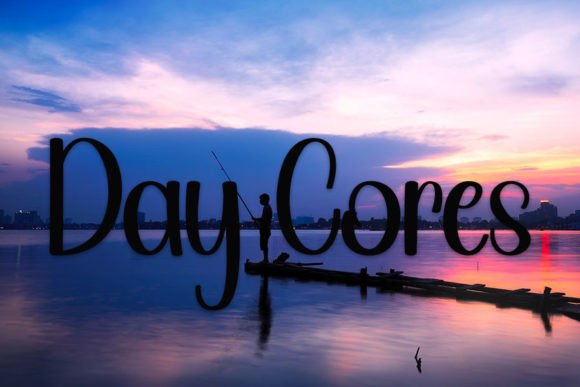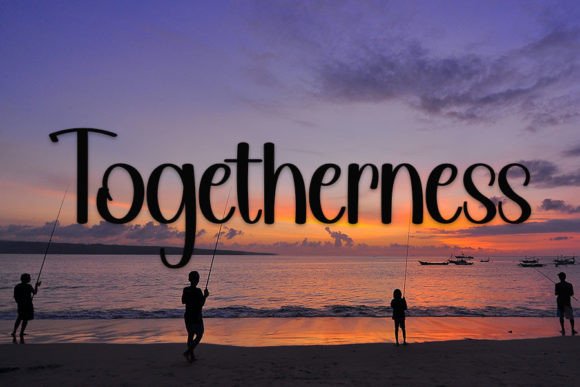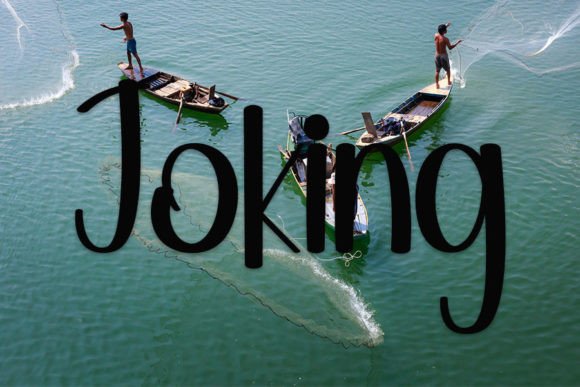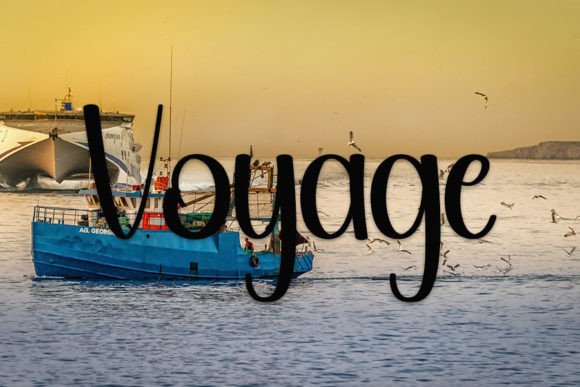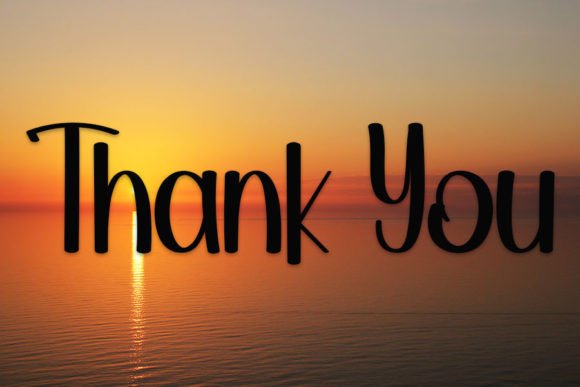
The Catch: Unleashing the Beauty of Fishing Font
I’ll never forget the moment I stumbled upon the perfect font for a client’s branding project. It was a design emergency – the deadline was looming, and I was stuck in a sea of sans-serifs and overused script fonts. That’s when I discovered Fishing Font, a hidden gem that would change the game. In this article, I’ll share my love affair with this elegant handwritten font, its capabilities, and how to make the most of it in your designs.
First Impressions: A Timeless Beauty
Fishing Font is described as a neat and beautiful handwritten font, and I couldn’t agree more. Its elegant touch and incredibly distinct style make it perfect for a wide range of projects. The font’s timeless charm will transport your designs to a world of sophistication and refinement.
Honest Review: The Good, the Great, and the Quirks
So, what makes Fishing Font so special? Here are the things I love:
- ✨ Elegant and refined aesthetic
- 💫 Supports OpenType features, glyphs, and stylistic alternates
- 🎨 Versatile and suitable for various design projects
However, no font is perfect, and Fishing Font has a few minor quirks:
- 🤔 Limited character set compared to some other fonts
- ⚠️ May not be the best choice for body text due to its elegant, cursive nature
The Story Behind Fishing Font
Fishing Font was designed by a talented typographer who drew inspiration from traditional fishing villages and the elegance of handwritten scripts. The goal was to create a font that would evoke a sense of refinement and sophistication, perfect for designers and crafters looking for a unique touch.
| Font Name | Fishing Font |
| What makes Fishing Font so special? | Fishing Font’s unique blend of elegance and legibility makes it perfect for a wide range of design projects. |
| Does Fishing Font support OpenType features? | Yes, Fishing Font supports OpenType features, glyphs, and stylistic alternates, allowing for advanced typographic control. |
| Can I use Fishing Font in both print and digital designs? | Absolutely! Fishing Font is versatile and suitable for both print and digital projects. |
In conclusion, Fishing Font is a beautiful and elegant handwritten font that can elevate your designs to new heights. With its timeless charm, versatility, and OpenType features, it’s a great addition to any designer’s toolkit. So go ahead, give Fishing Font a try, and see how it can help you create spectacular designs!